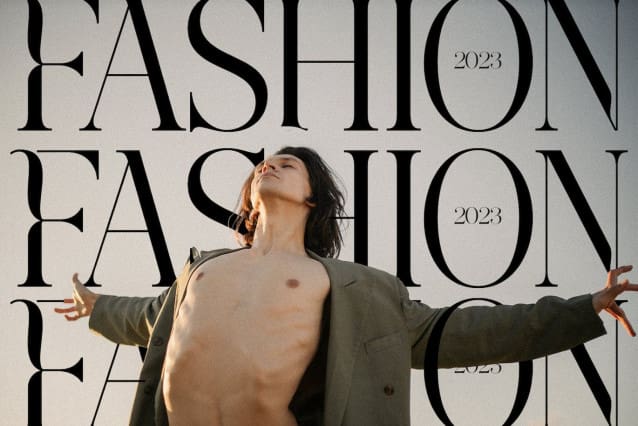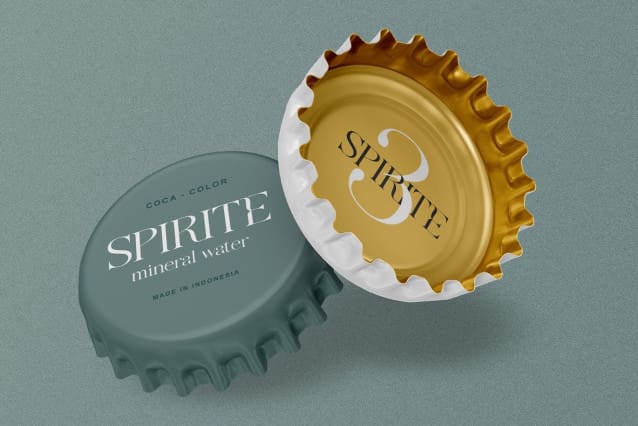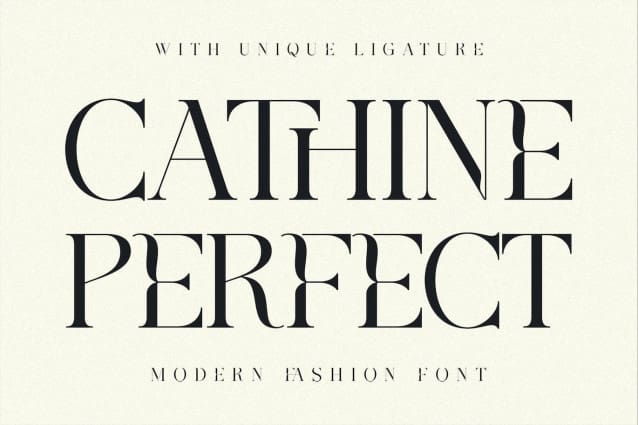
Cathine Font
Cathine Font will perfect for many project: book, magazines, logo, branding, photography, quotes, blog header, poster, advertisements, etc.